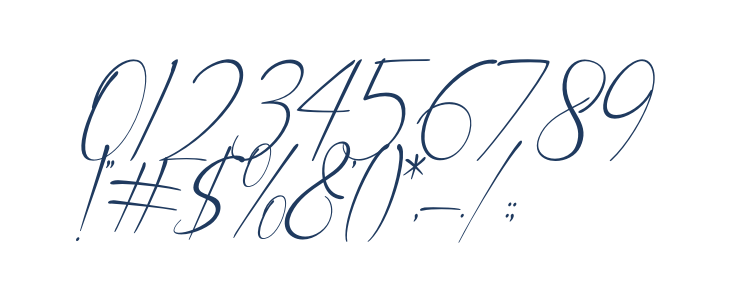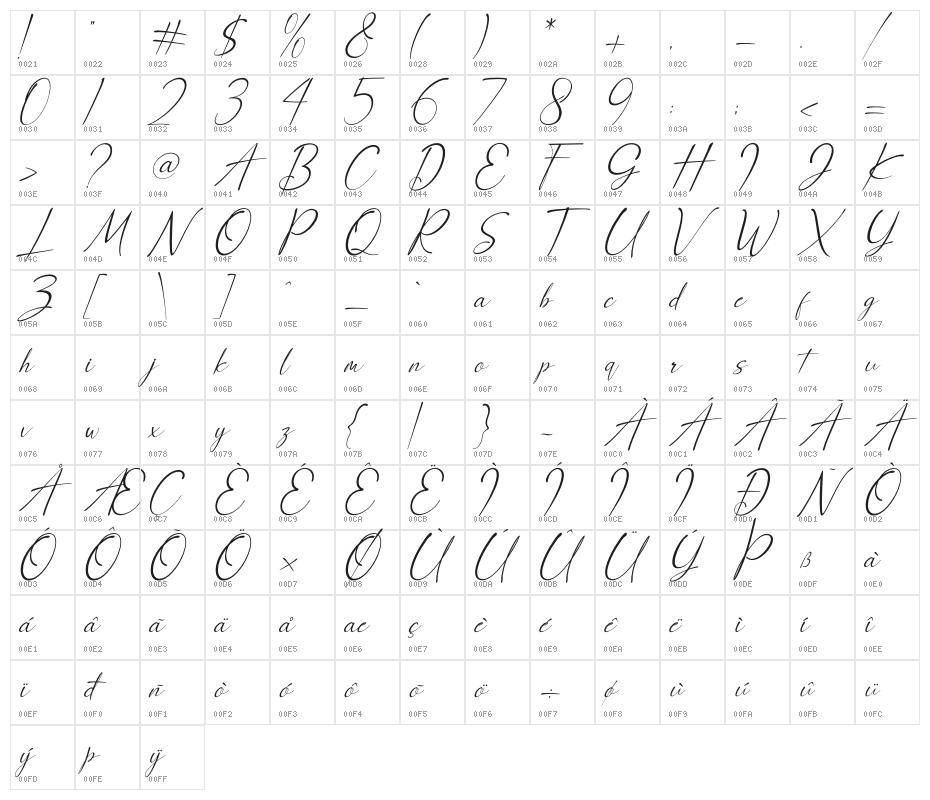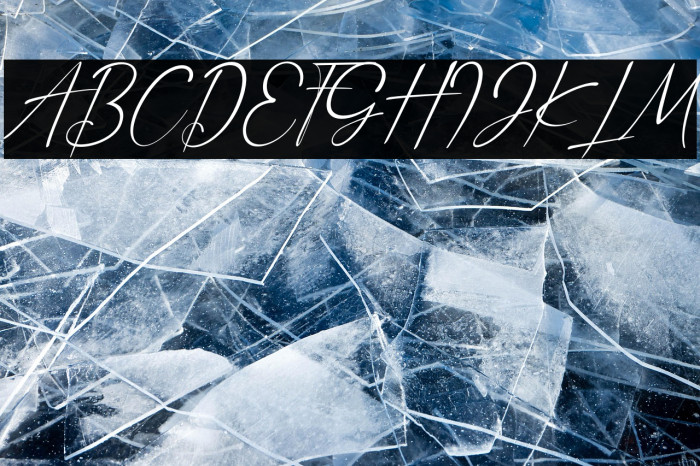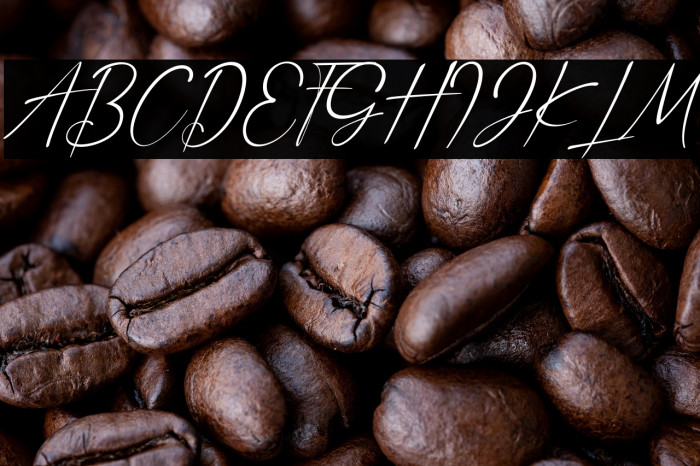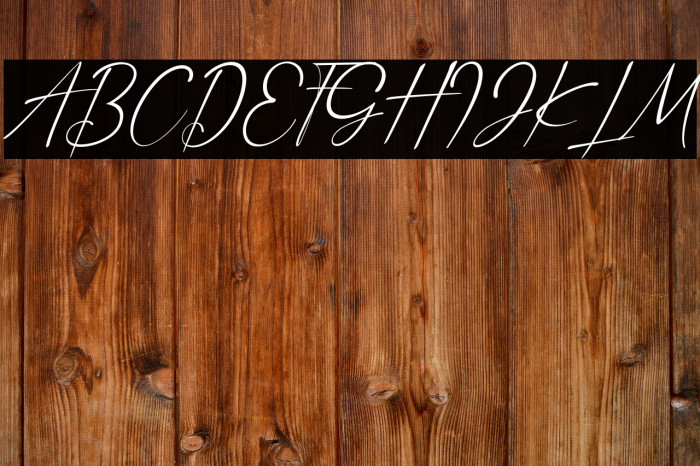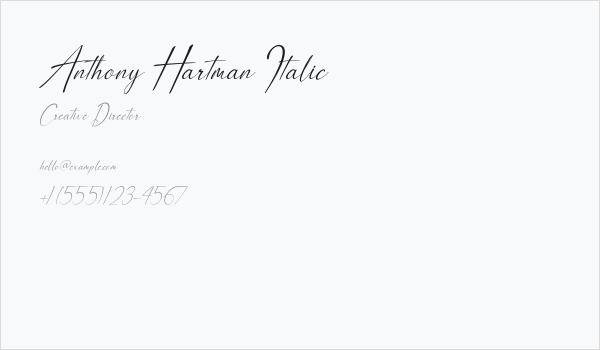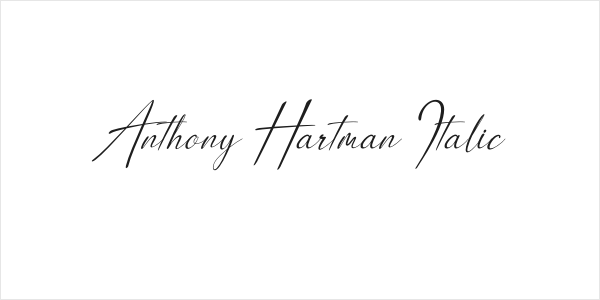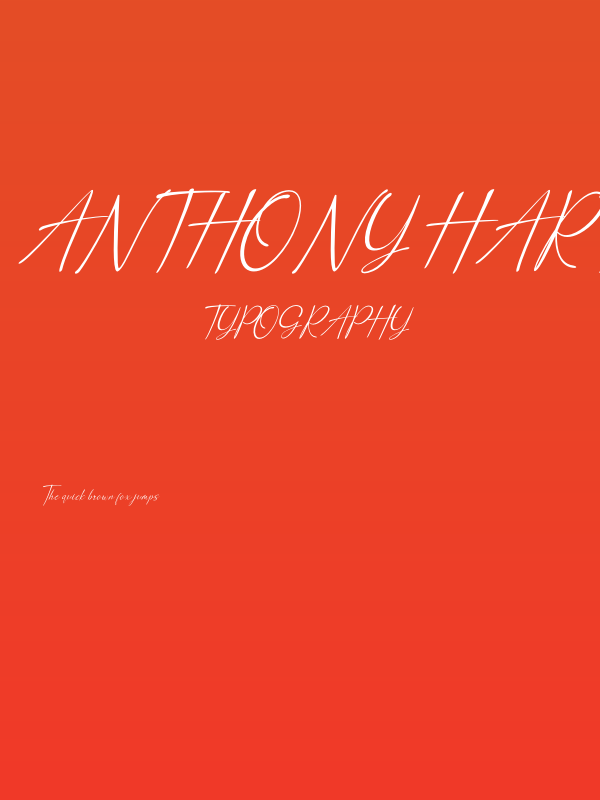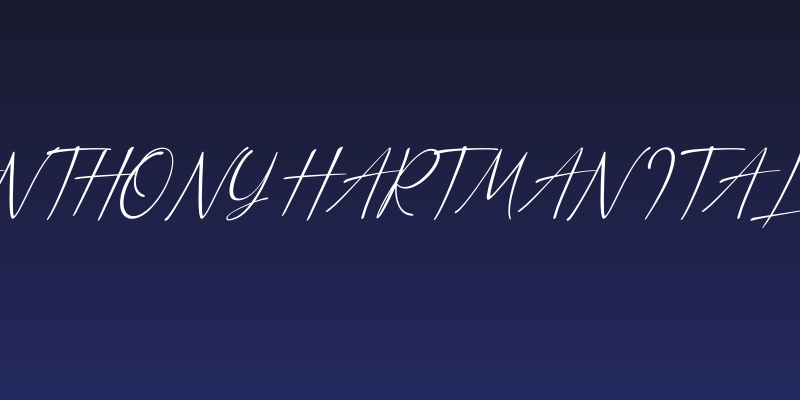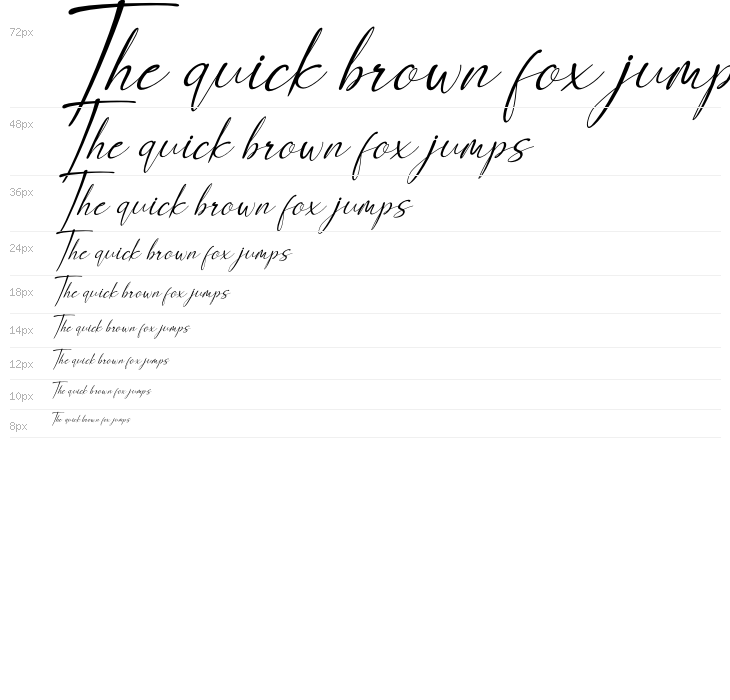
Anthony Hartman Italic Font
Anthony Hartman Italic Description
This elegant script font features a flowing, cursive style with a sophisticated and artistic flair. The characters are connected in a fluid manner, creating a sense of continuity and grace. The uppercase letters are tall and slender, while the lowercase letters maintain a consistent slant, enhancing the overall italicized appearance. The numerals and special characters are designed with the same attention to detail, ensuring a cohesive look across all elements. This font exudes a sense of refinement and is perfect for projects that require a touch of elegance and class.